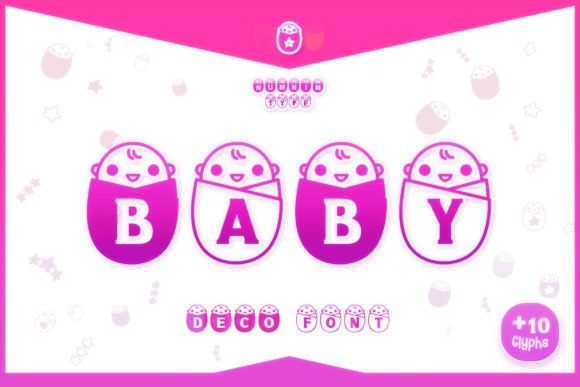
The Perfect Accent for Your Designs: Baby Font
You’ve finally found the perfect idea for your next design project, and you can’t wait to bring it to life. But something’s missing – a bold, eye-catching element that will make your creation stand out from the crowd. That’s where Baby Font comes in – a cool and uniquely designed decorative font that’s sure to add some personality to your work.
With its fun and playful characters, Baby Font is the perfect addition to any design. Whether you’re creating a logo, a social media graphic, or a website, this font is sure to add a touch of whimsy and charm. And with its PUA encoding, you can access all of the glyphs and swashes with ease, giving you endless possibilities for creativity and self-expression.
Baby Font Key Features
- Font Family: Baby Font is a unique, hand-drawn font designed specifically for use in children’s products and educational materials.
- Unique Characteristics: Baby Font features rounded shapes, soft lines, and playful letterforms, making it perfect for creating engaging and child-friendly content.
Baby Font Review
As a designer, I was excited to dive into the world of Baby Font. Overall, I think it’s a cute and playful font, perfect for creating a whimsical atmosphere.
- Expressive characters: Baby Font’s unique characters bring a smile to my face. The exaggerated features and rounded edges make it perfect for creating a child-friendly vibe.
- Great for titles and headings: The font is ideal for use in titles, headings, and other display text, where its playful nature can really shine.
- Not ideal for body text: While Baby Font is great for display text, it may be a bit too playful and distracting for large blocks of body text.
- Limited versatility: The font’s style and structure may not lend itself to a wide range of design applications, making it more suitable for specific niches.
While Baby Font may not be the most versatile or practical font, I think it’s a great addition to any designer’s toolkit. Its unique style and expressive characters make it perfect for creating a playful and whimsical atmosphere. Just be mindful of its limitations and use it where it shines the most.
Tips for Getting the Most Out of Baby Font
Use Baby Font for creating a playful and whimsical atmosphere in your designs. It’s perfect for children’s products, nursery decor, and other projects that require a cute and endearing tone.
Baby Font is commonly used in:
- Children’s product labels
- Nursery decor and wall art
- Children’s books and educational materials
Alternatives to Baby Font
Playfair Display is an elegant, luxurious serif font suitable for formal and high-end designs. It features intricate details and connections between letters, making it ideal for wedding invitations, luxury branding, and upscale packaging.
Compared to Baby Font, Playfair Display is more formal and sophisticated, while Baby Font is playful and cute. Playfair Display is better suited for corporate and high-end designs, whereas Baby Font is ideal for children’s products and casual branding.
Great Vibes is a modern, elegant script font that conveys a sense of sophistication and luxury. It’s perfect for creating a high-end feel in designs, making it ideal for fashion, beauty, and lifestyle brands.
Great Vibes has a similar playful feel to Baby Font but with a more refined and elegant touch. While Baby Font is more childlike, Great Vibes is more mature and sophisticated, making it suitable for a wider range of audiences.
Alex Brush is a beautiful, elegant script font that adds a touch of sophistication and luxury to designs. It’s perfect for creating a high-end feel in branding, packaging, and advertising.
Alex Brush has a similar playful feel to Baby Font but with a more refined and elegant touch. While Baby Font is more childlike, Alex Brush is more mature and sophisticated, making it suitable for a wider range of audiences.